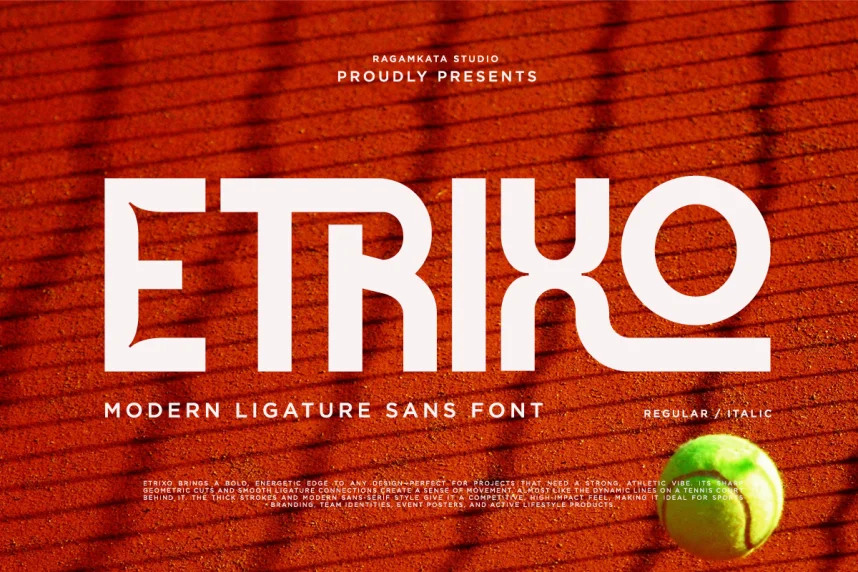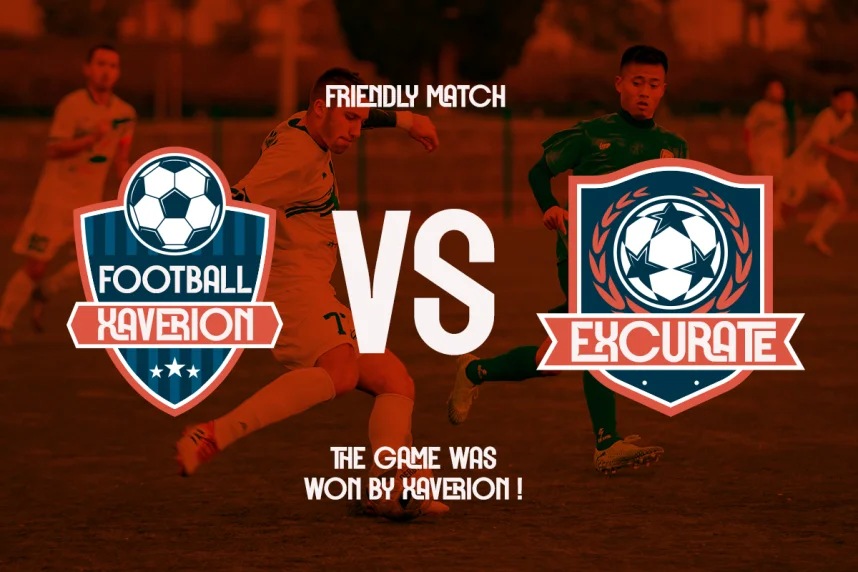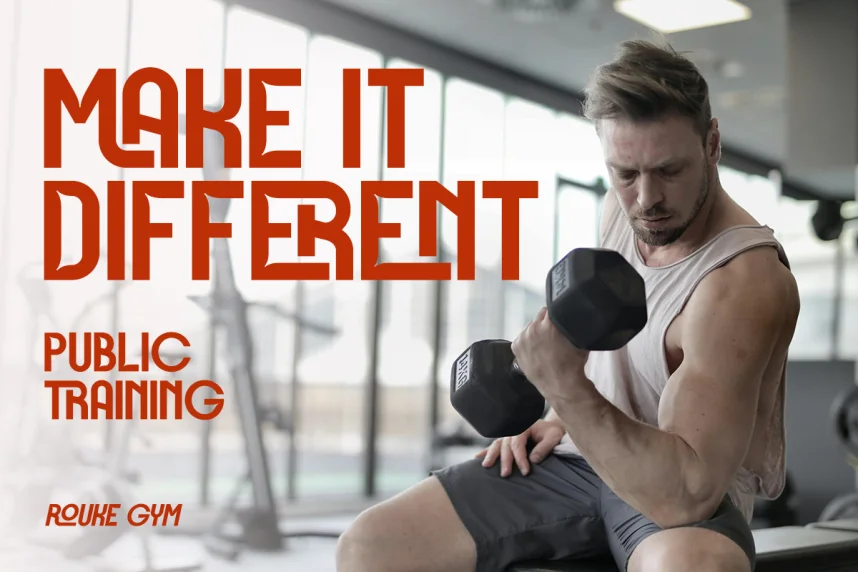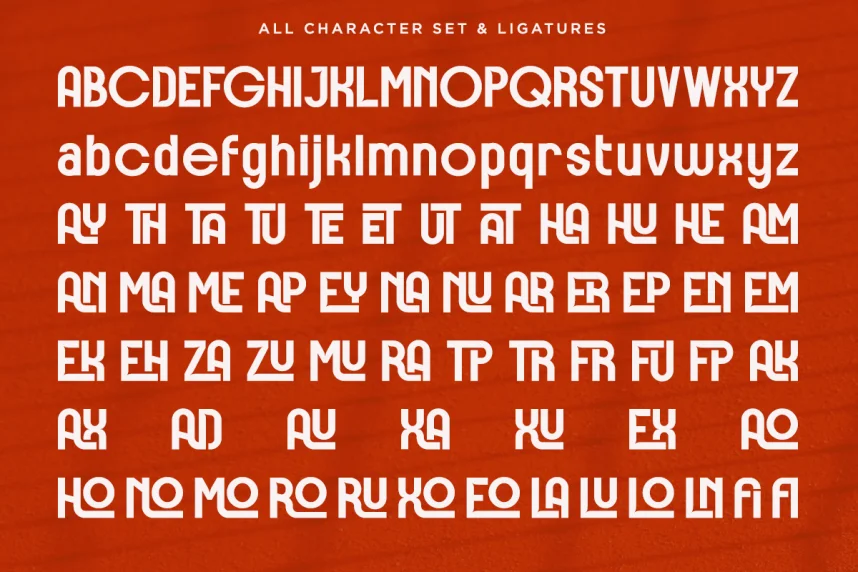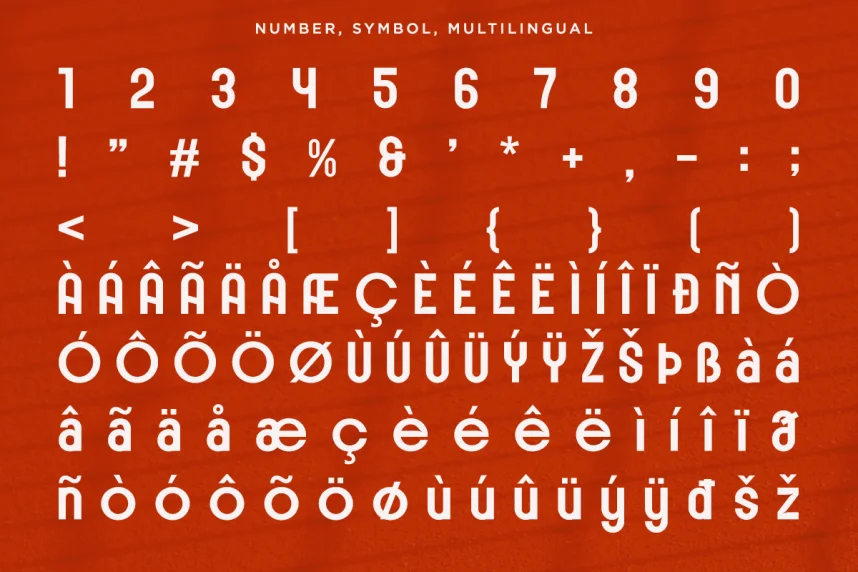
Etrixo Font solves clarity issues in futuristic or tech-inspired designs, where overly stylized fonts often reduce legibility.
Etrixo is a sans-serif typeface with geometric structure, angular forms, and consistent stroke widths. Its design works for short text, headings, and branding.